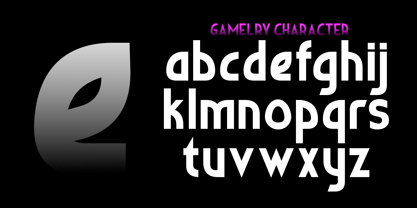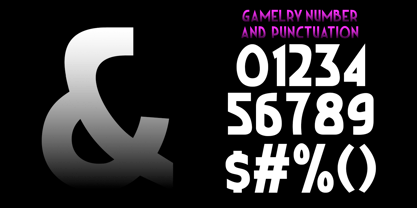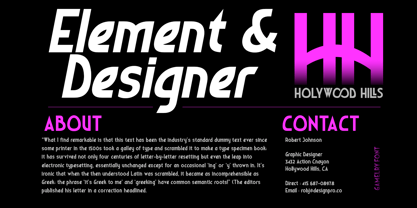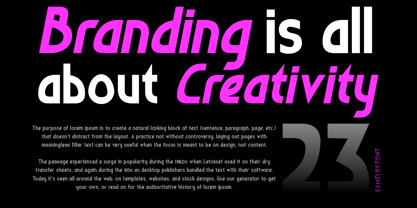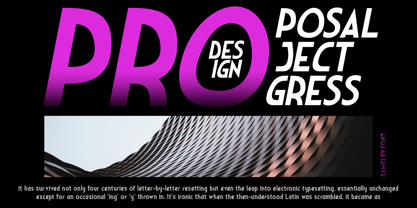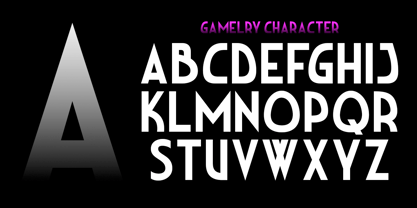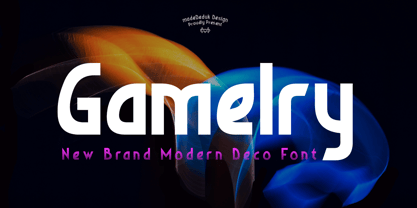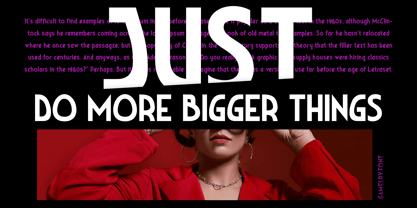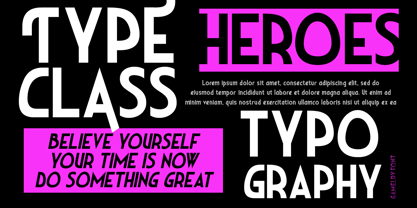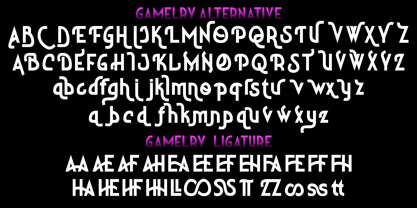
Gamelry
by madeDeduk
The Gamelry Font Family was designed by madededuk and published by madeDeduk. Gamelry contains 2 styles and family package options. More about this family
Inspired by modern deco style, creating a new sleek vintage and combining it with modern sans techniques for a stylish, classic feel. Use this font for any kind of branding, product packaging, headlines, invitations, quotes, labels, posters, logos, etc.
Designers: madededuk
Foundry: madeDeduk